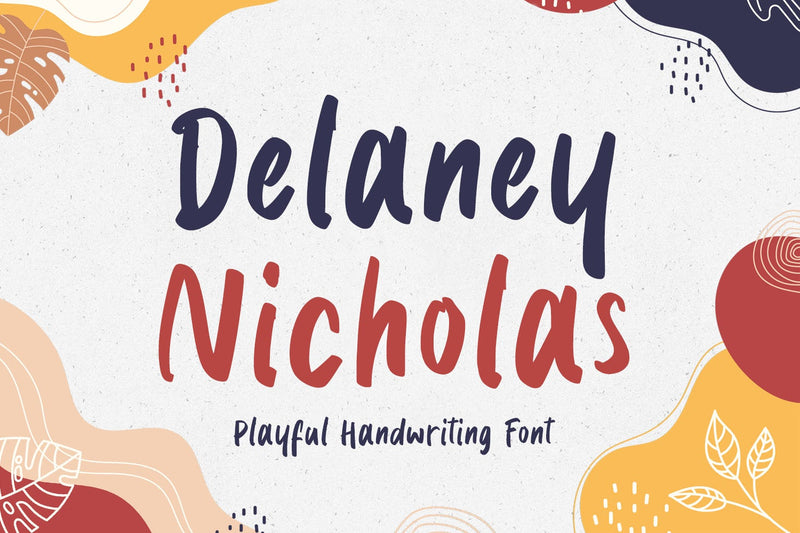
Delaney Nicholas - Cute Handwritten Font
Delaney Nicholas is a playful and unique display font. This font will easily add a fun touch to any craft!
Delaney Nicholas would be perfect for logos & branding, photography, watermark, social media posts, advertisements, invitation, product designs, label, stationery, product packaging, special events, or anything that needs handwriting taste.